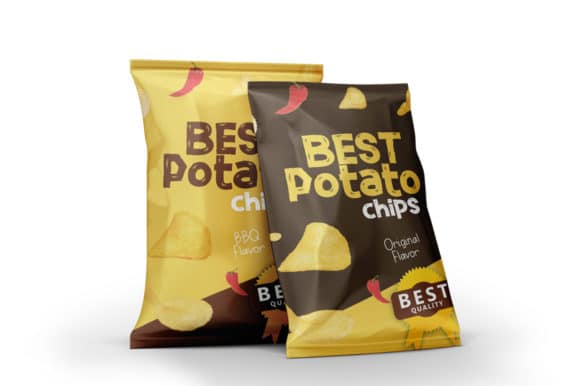
Potato Chips Font is Display Font. Can make it easier to convey the message in your design. Use for awesome display, labeling, clothing, movie scene, poster, movie title, gigs, album covers, logos, and much more.